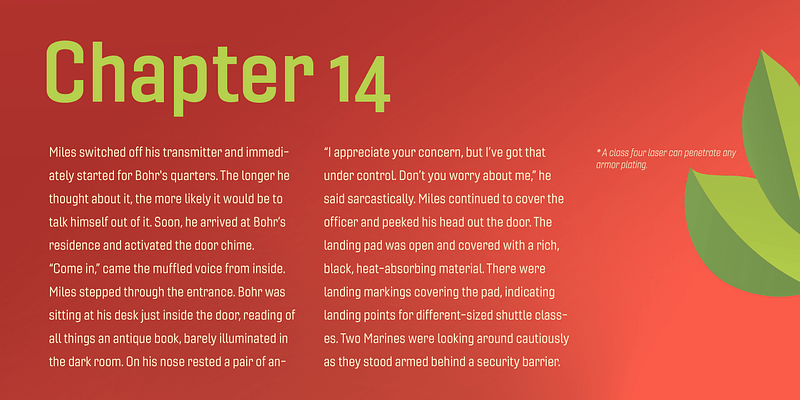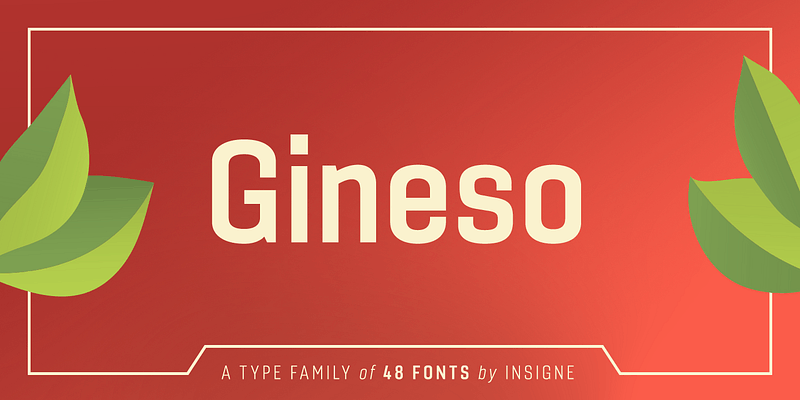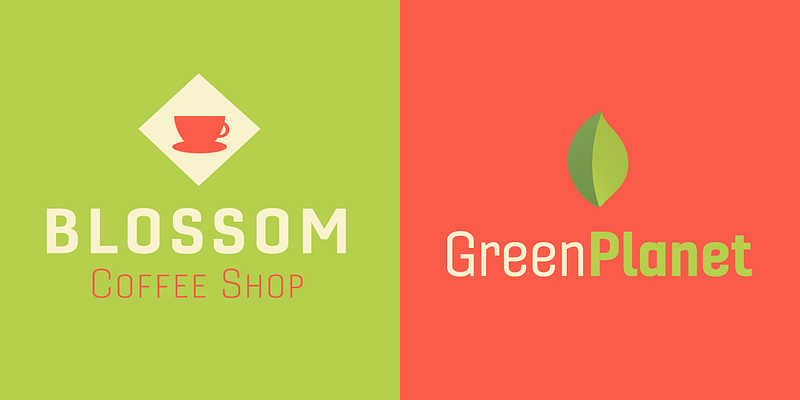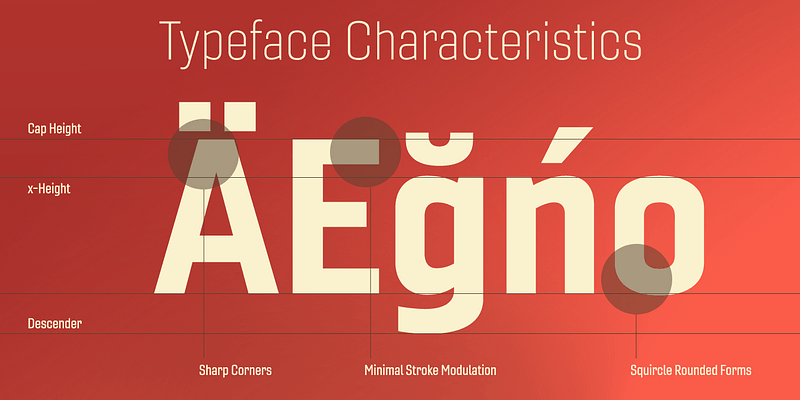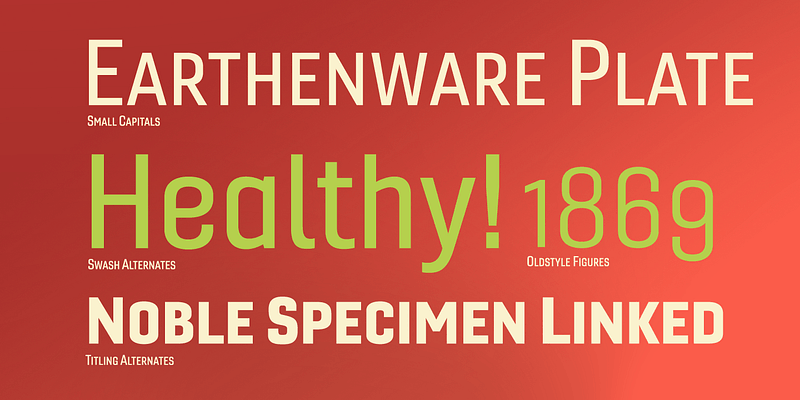
Gineso was created for posters, headlines and logotypes. The tight, narrow forms of its geometric design leave you with a robust flavor that will remind you of mamma’s spaghetti.